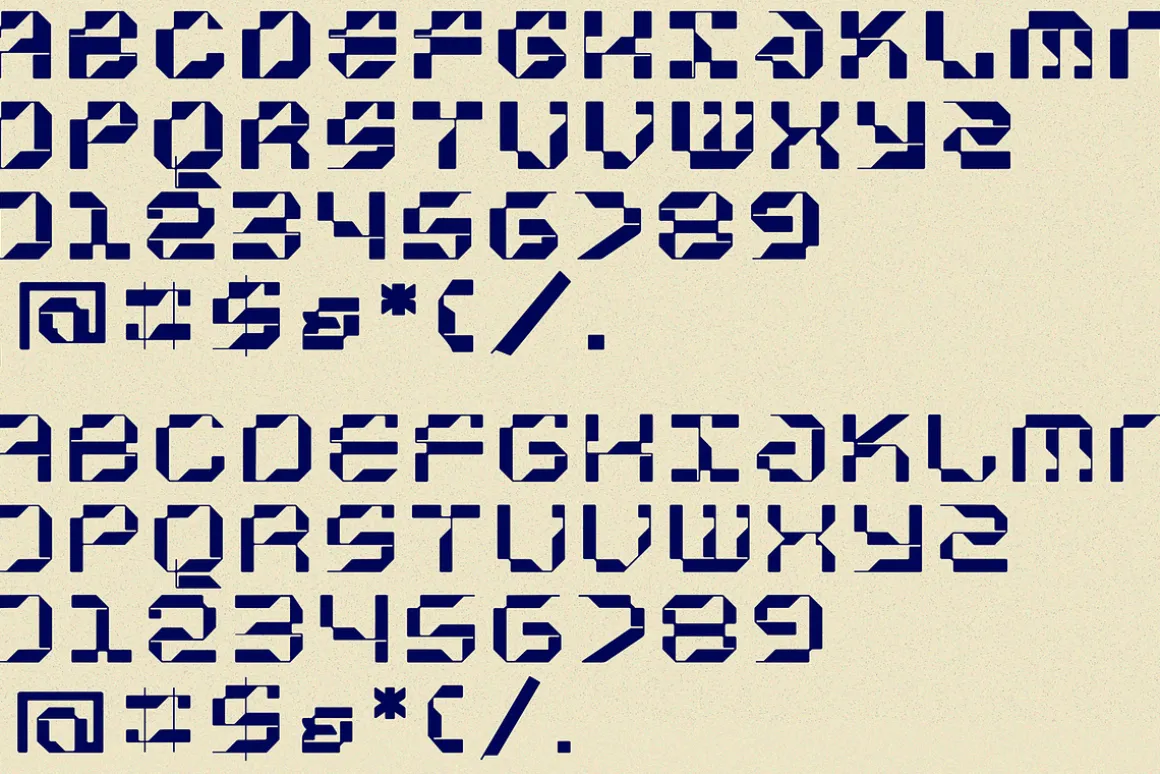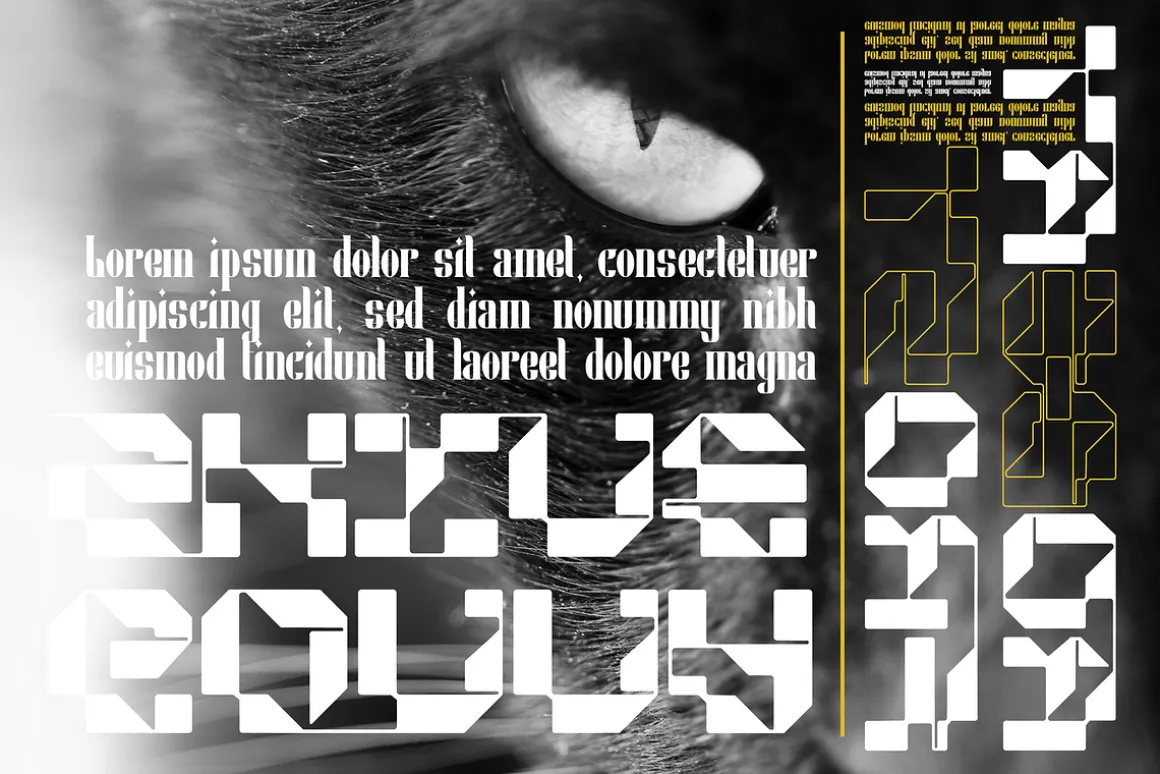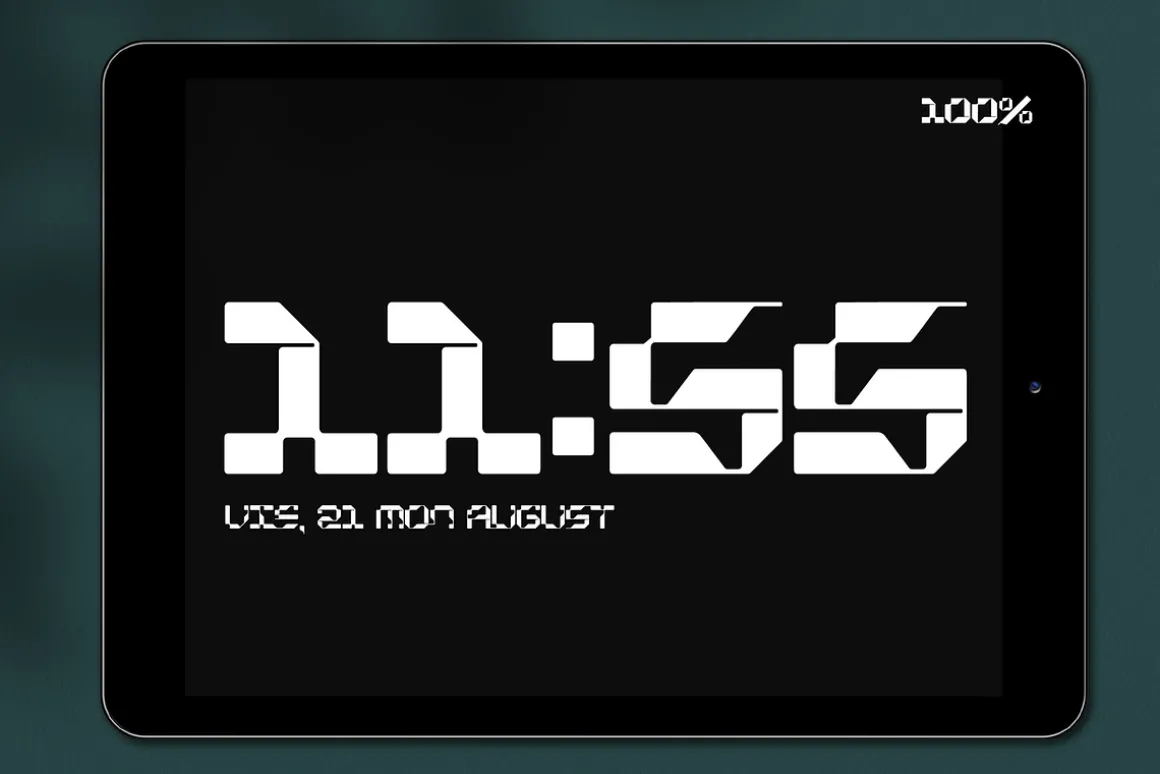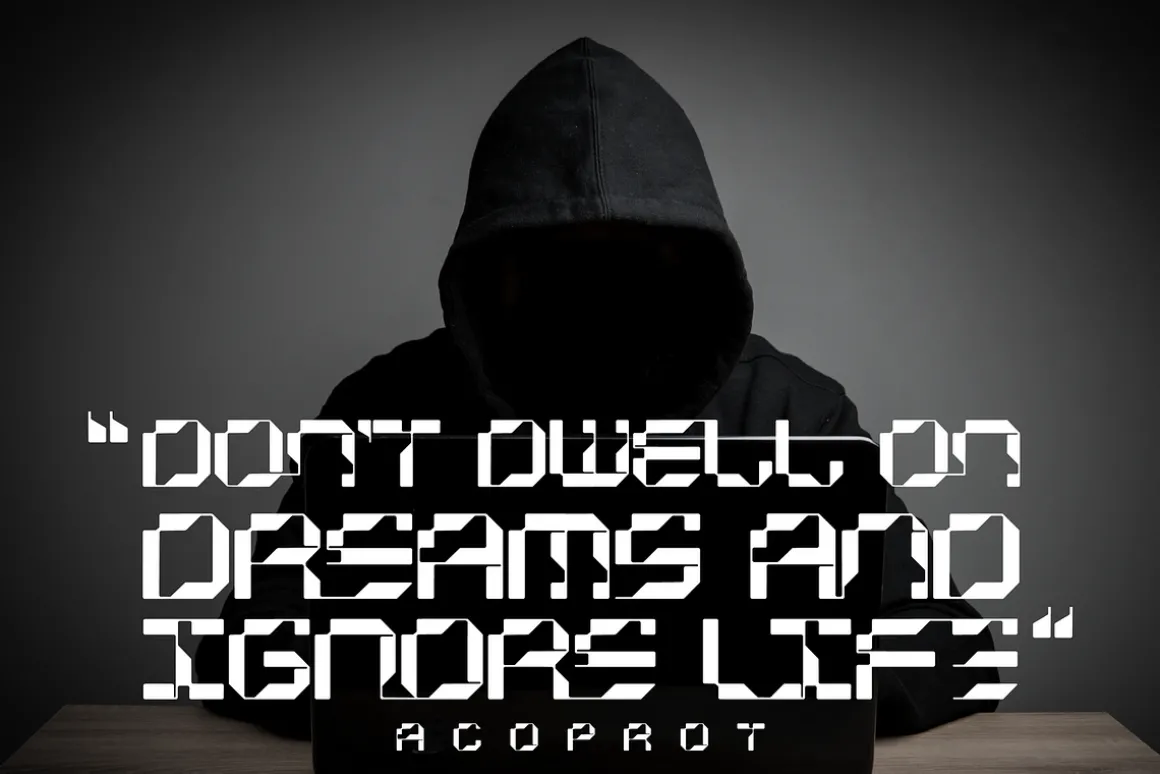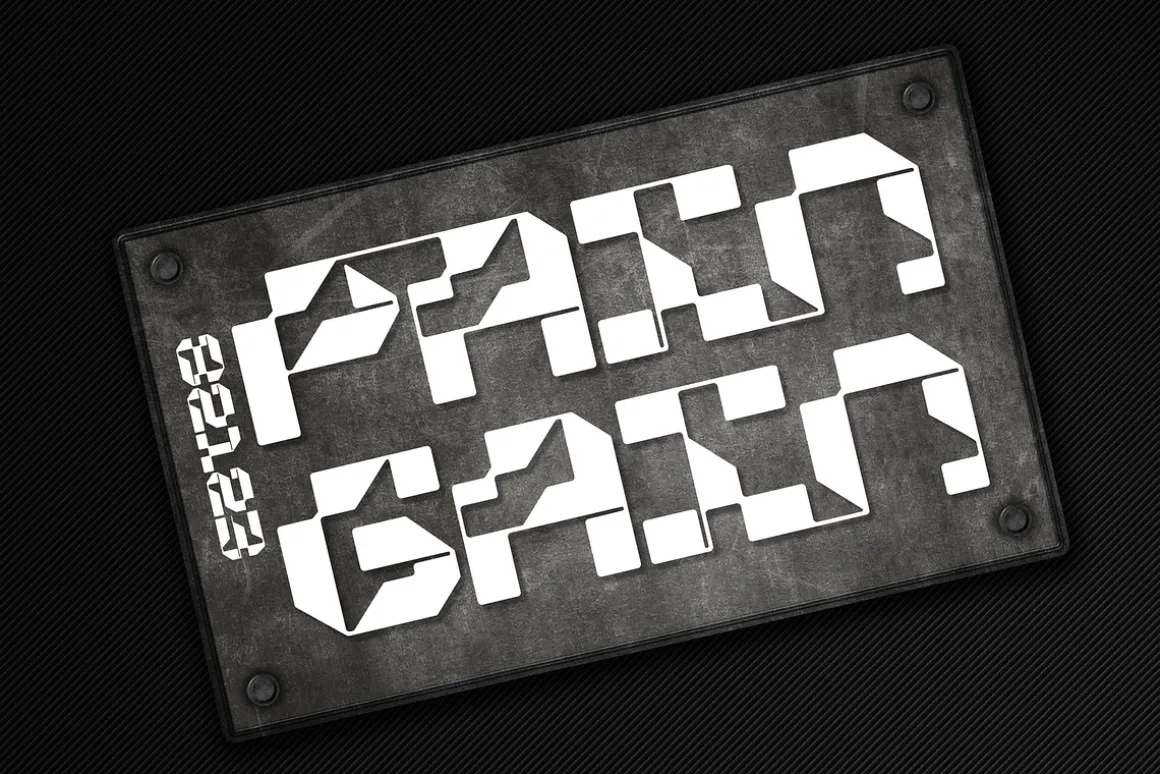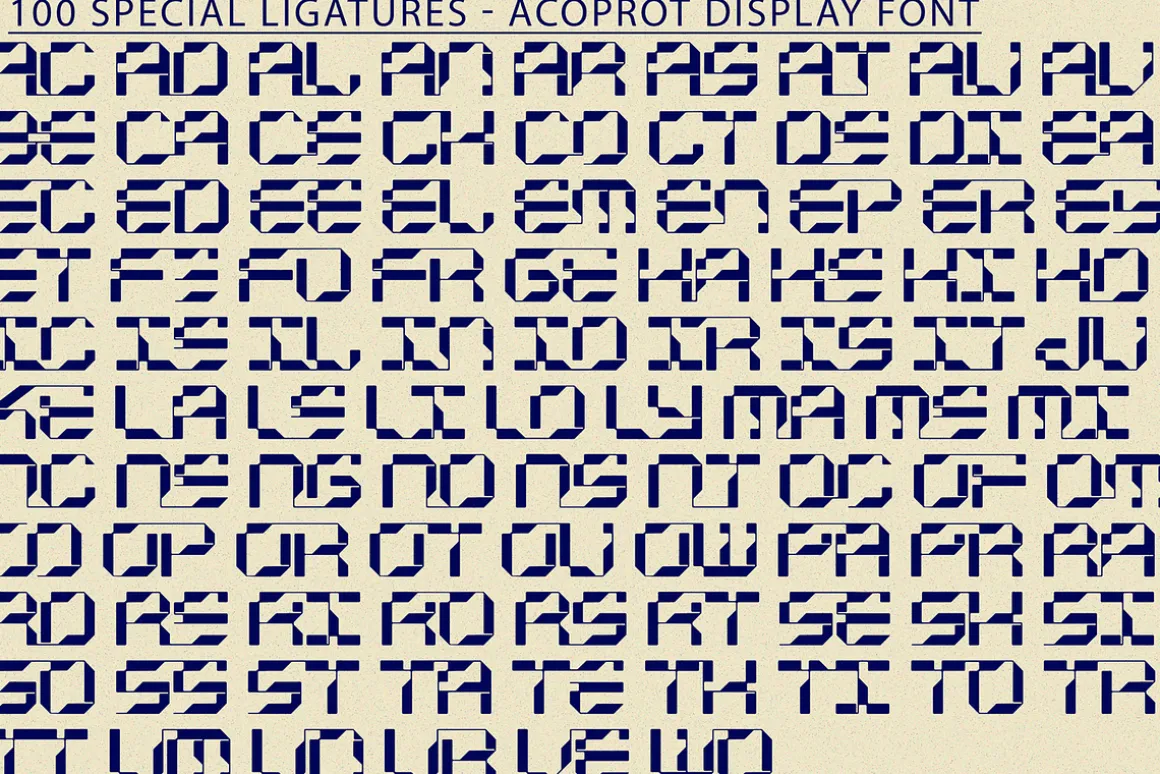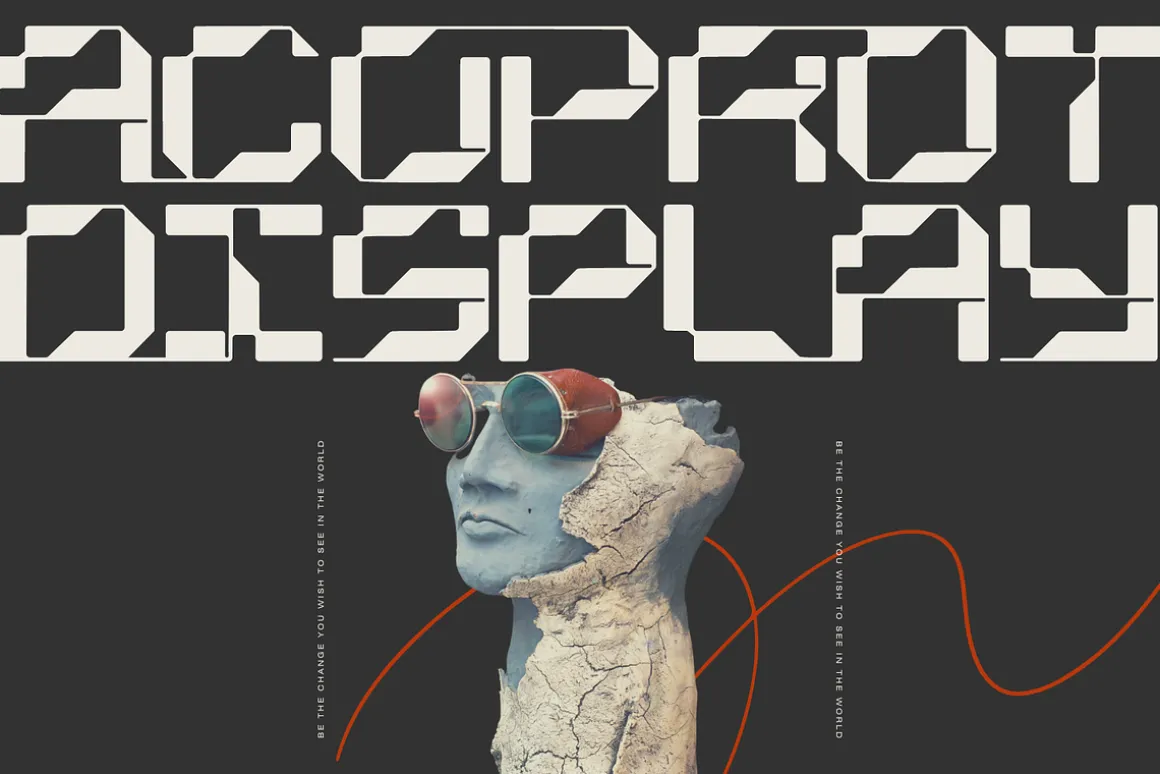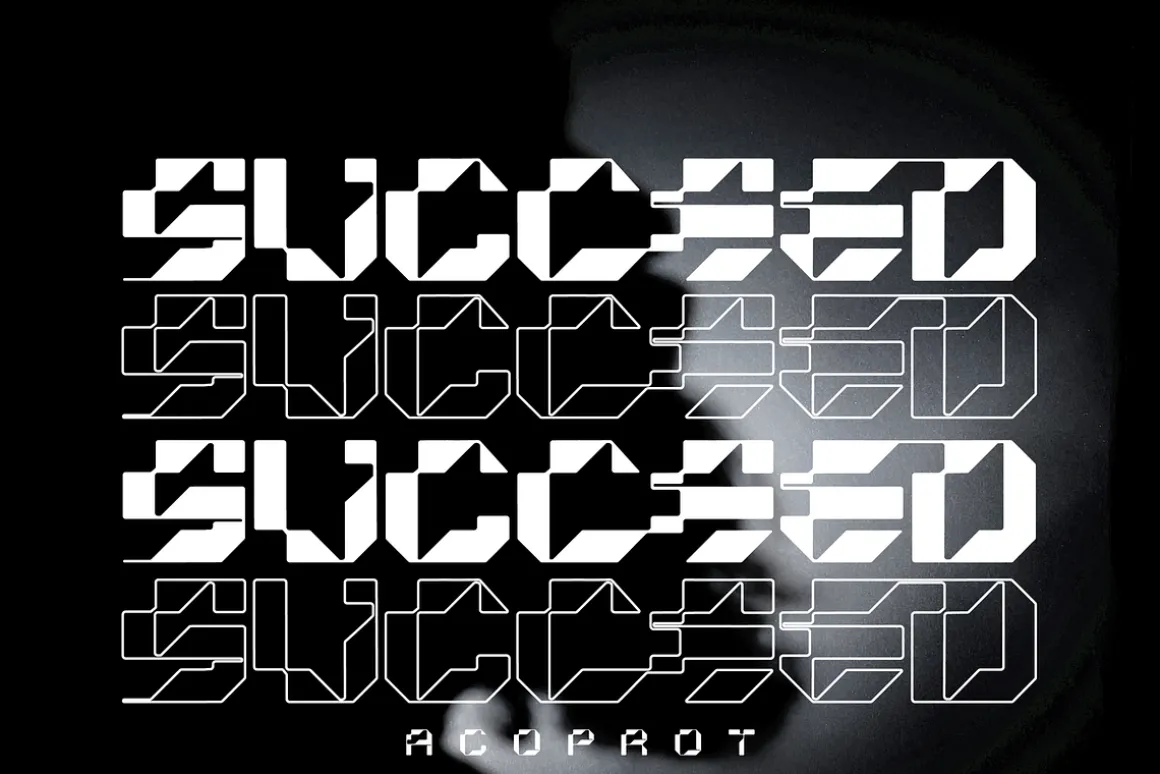
Acoprot Display Font is a pixel-style, grid-based, display typeface. The font is created as if there was an error, a kind of glitch, each character has an offset of one of the pixels. Characterized by its simplicity, attention to detail, and original form. Add this font to your creative ideas and notice how it will make them stand out! Retro, retro-futuristic, modern, techno theme projects fit perfectly with this typeface, any works from logo, poster, video, headlines, titles, and more!
Acoprot was built with OpenType features and includes 100 ligatures, alternate, numbers, punctuation, and it also supports other languages.
AC AD AL AN AR AS AT AU AV BE CA CE CH CO CT DE DI EA EC ED EE EL EM EN EP ER ES ET FE FO FR GE HA HE HI HO IE IC IL IN IO IR IS IT JU KE LA LE LI LL LO LY MA ME MI NC ND NE NG NO NT NS OC OF OM ON OO OP OR OT OU OW PA PR RA RD RE RI RO RS RT SE SH SI SO SS ST TA TE TH TI TO TR TT UM UN UR VE WI WO
This font also included full set of:
- Uppercase and Lowercase letters
- Special Ligatures
- Numerals & Punctuation
- Accented characters